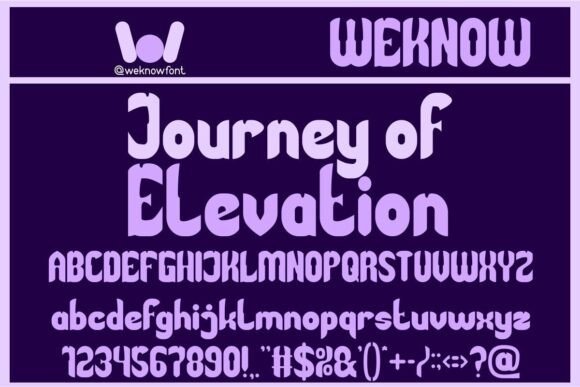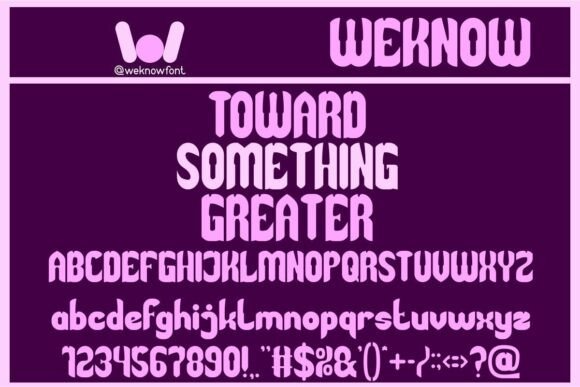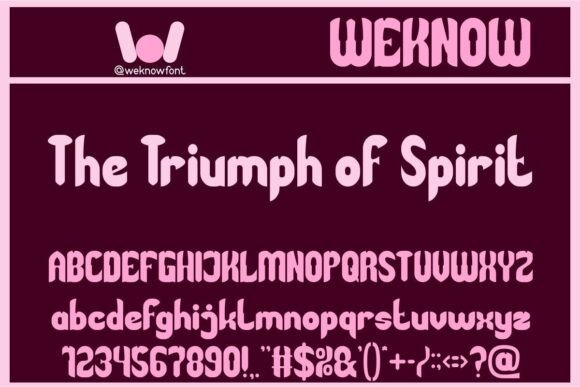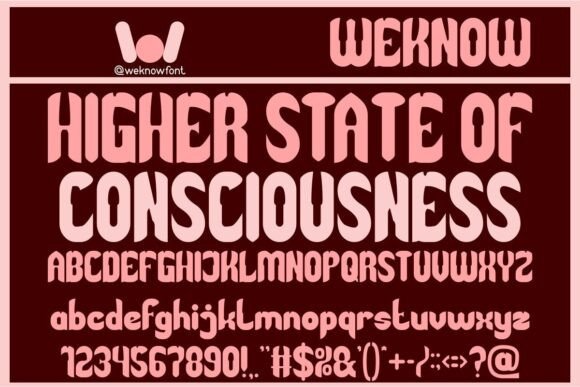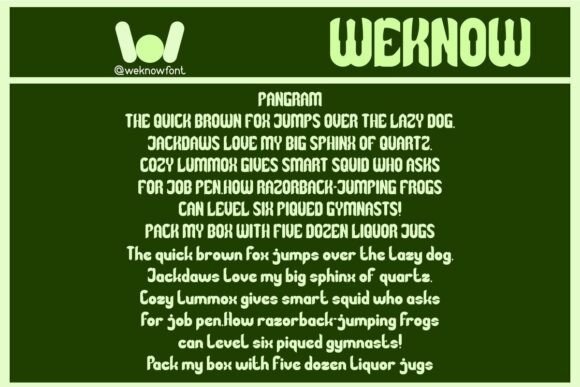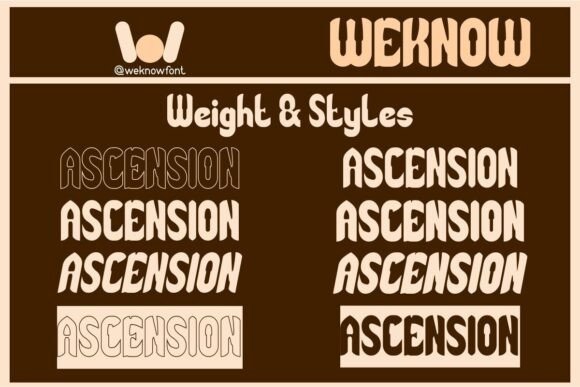
Unleash the Magic of Ascension Font: A Modern Gothic Marvel
In the realm of typography, few fonts manage to capture the essence of both old-world charm and contemporary aesthetics as effortlessly as Ascension Font. This modern Gothic marvel is a celebration of versatility, breathing life into your design projects with its unique blend of metallic fairytale charm and sophisticated appeal. Whether you’re a designer looking to craft a distinct logo or a crafter seeking to add a touch of elegance to your project, Ascension Font is the perfect choice.
The Birth of a New Classic: Ascension Font’s Unique Appeal
Ascension Font stands out in the world of typography due to its exceptional design, which seamlessly fuses modern Gothic elements with a metallic fairytale charm. This distinctive combination results in a font that is not only visually striking but also incredibly versatile. From the creation of unique logos and logotypes to enhancing corporate and brand identities, Ascension Font proves to be an invaluable asset for designers and crafters alike.
Perfect for Logos and Logotypes
One of the key strengths of Ascension Font lies in its ability to help designers craft unique and memorable logos and logotypes. The font’s bold, modern Gothic aesthetic infused with metallic charm, gives brands a distinct edge, setting them apart from the competition. The elegance and sophistication exuded by Ascension Font make it an ideal choice for brands aiming to leave a lasting impression on their audience.
Elevating Corporate and Brand Identities
Ascension Font is not just limited to logos and logotypes; it’s also perfectly suited for elevating the sophistication of corporate and brand identities. Its bold and engaging aesthetic can transform any brand’s visual identity, making it more memorable and engaging. Whether it’s for a website, business cards, or marketing materials, Ascension Font brings a level of refinement and class that is hard to match.
The Fusion of Old-World Charm and Contemporary Aesthetics
What makes Ascension Font truly special is its ability to marry old-world charm with contemporary aesthetics. The metallic fairytale charm adds a touch of whimsy and magic, while the modern Gothic appeal keeps the font grounded in current design trends. This fusion results in a font that feels both timeless and modern, a rare quality in the fast-paced world of design.
Why Choose Ascension Font?
There are several reasons why designers and crafters should consider Ascension Font for their projects:
- Versatility: Ascension Font can be used across a wide range of design projects, from logos and branding to packaging and digital media.
- Unique Aesthetic: The font’s blend of modern Gothic and metallic fairytale elements gives it a unique look that can help brands stand out.
- Sophistication: Ascension Font adds a level of sophistication and elegance to any design, making it perfect for brands looking to elevate their visual identity.
- Memorability: The distinctive charm of Ascension Font makes it memorable, helping brands leave a lasting impression on their audience.
Tips for Using Ascension Font
To get the most out of Ascension Font, consider the following tips:
- Experiment with Sizes: Ascension Font looks great in both large and small sizes, making it versatile for various applications.
- Play with Colors: While the metallic charm of Ascension Font shines through in its default form, experimenting with different colors can add a new dimension to your design.
- Mix and Match: Don’t be afraid to combine Ascension Font with other fonts to create a unique visual hierarchy.
Ascension Font is more than just a typeface; it’s a design statement. Its modern Gothic appeal infused with a metallic fairytale charm, makes it a versatile tool for designers and crafters looking to add a touch of elegance and sophistication to their projects. Whether you’re crafting a unique logo, enhancing a brand’s identity, or simply looking for a font that stands out, Ascension Font is an excellent choice. Embrace the magic of Ascension Font and breathe life into your design projects with its distinctive and captivating aesthetic.